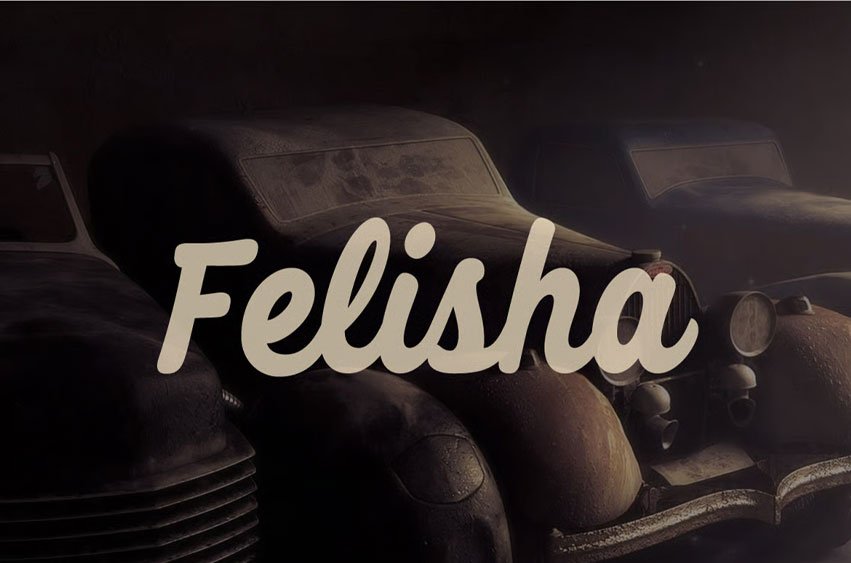
Felisha Font is a multipurpose bold typeface that can be used in both modern and vintage design styles.
Felisha comes with 2 different styles: Regular and Rough. They are suitable for retro signs, vintage-style badges, branding, posters, etc.